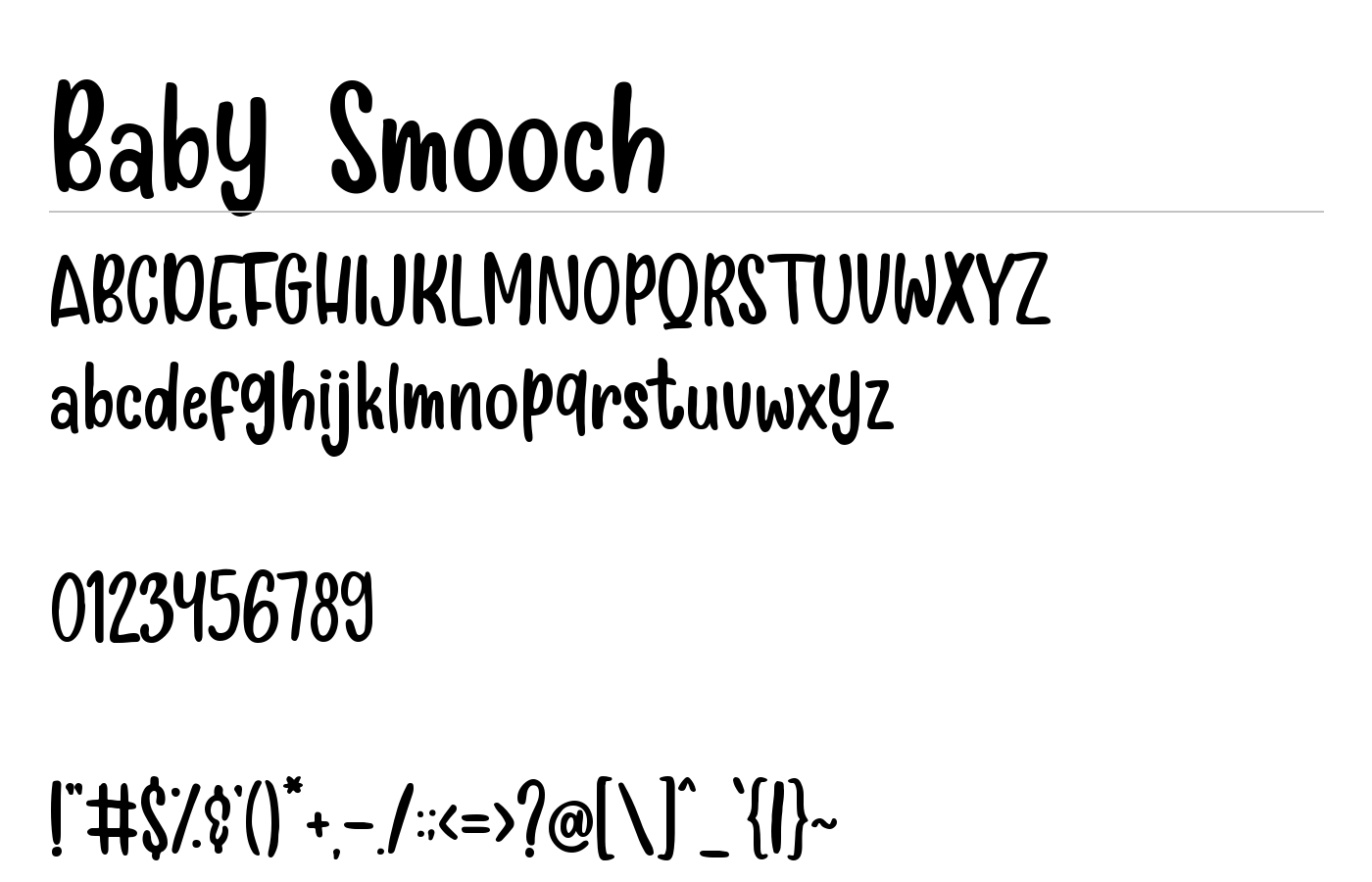
Baby Smooch is a playful and casual handwritten sans serif font with a friendly, rounded appearance and moderate stroke contrast. Its tall x-height and slightly irregular letterforms give it a warm and approachable feel, making it perfect for children's content, informal branding, and whimsical designs. This font works well for logos, invitations, and any project that aims to convey fun and creativity with a personal touch.
Baby Smooch Font
About Baby Smooch Font
| Font family | Baby Smooch Font |
| Designer | Dimas Prasetyo |